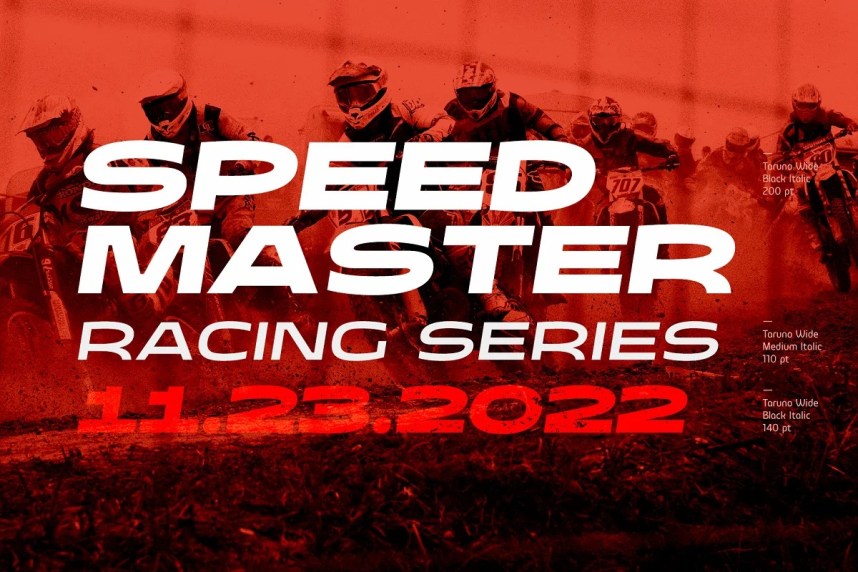
Taruno Wide Font Family
Taruno Wide Sans Serif Font is an expanded sans serif font family created by Locomotype with a contemporary feel. Choosing this font is a stellar solution for classy design projects that demand to leave a strong and professional impression.
Consisting of 6 beautiful weights and an outline version plus matching italics, this minimalist sans serif will fit wherever you put it. Use this for clothing designs, posters, branding and more!